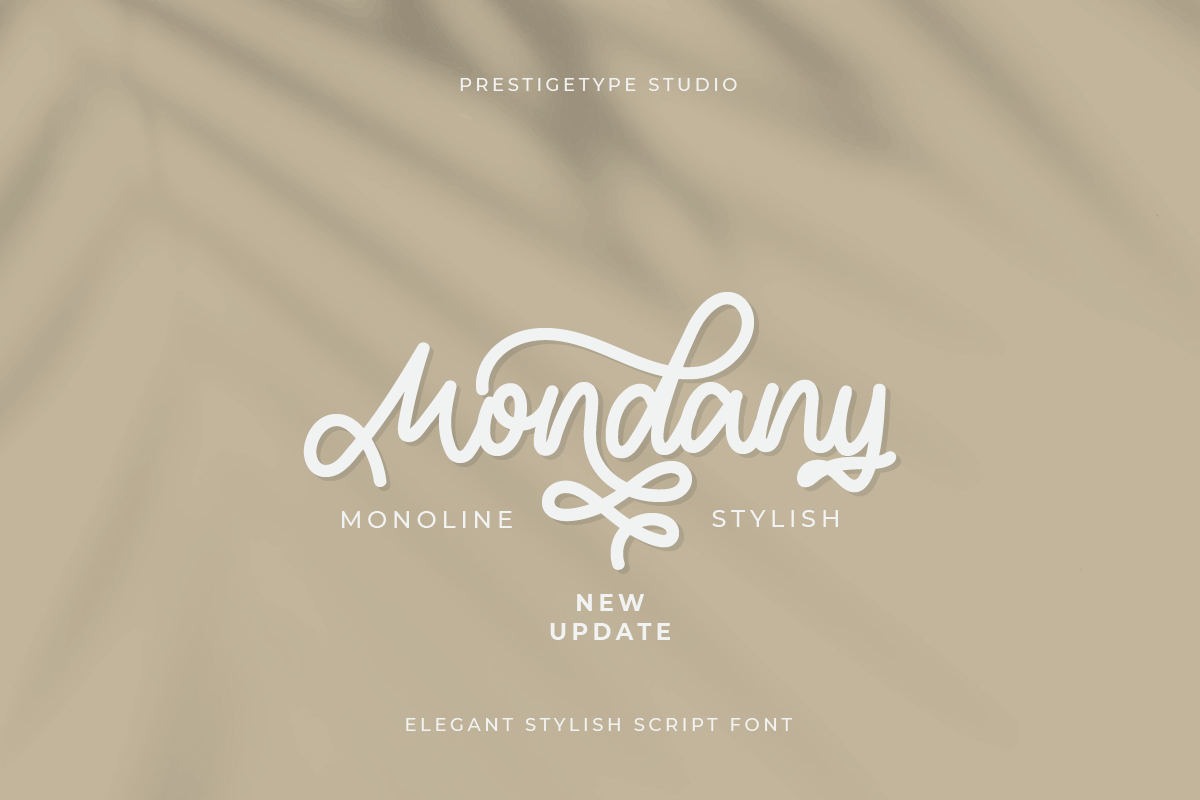
Mondany Monoline Font Free Download is a sleek, modern typeface with a minimalist design that combines simplicity and elegance. With its clean monoline structure and smooth lines, this font is perfect for contemporary branding, logo design, website headers, invitations, and packaging.
Its minimalist aesthetic allows for easy legibility while still delivering a strong visual presence. Whether you're working on a stylish tech brand, a modern magazine layout, or a sophisticated promotional piece, Mondany Monoline Font Free Download adds a polished and professional look to your design.